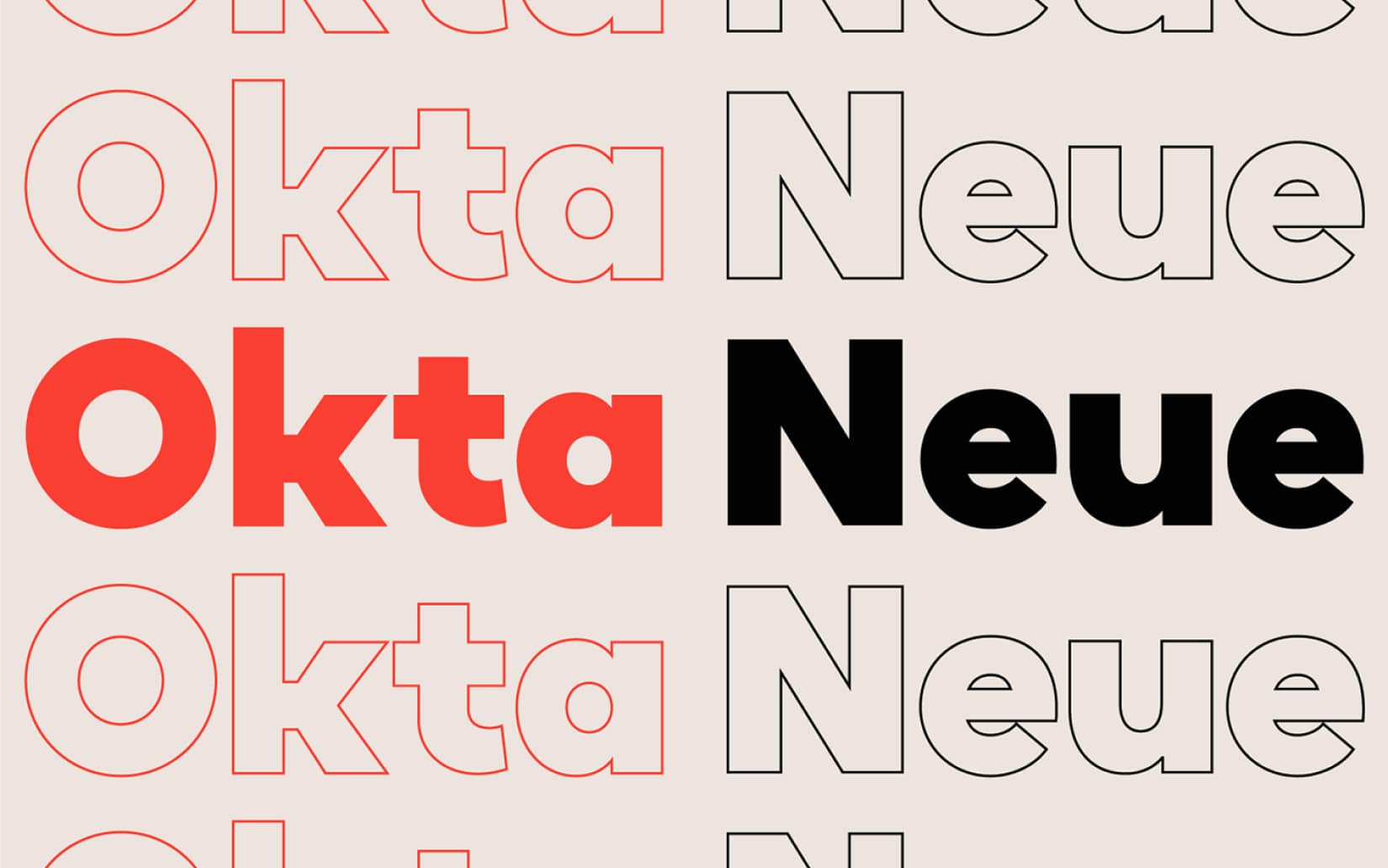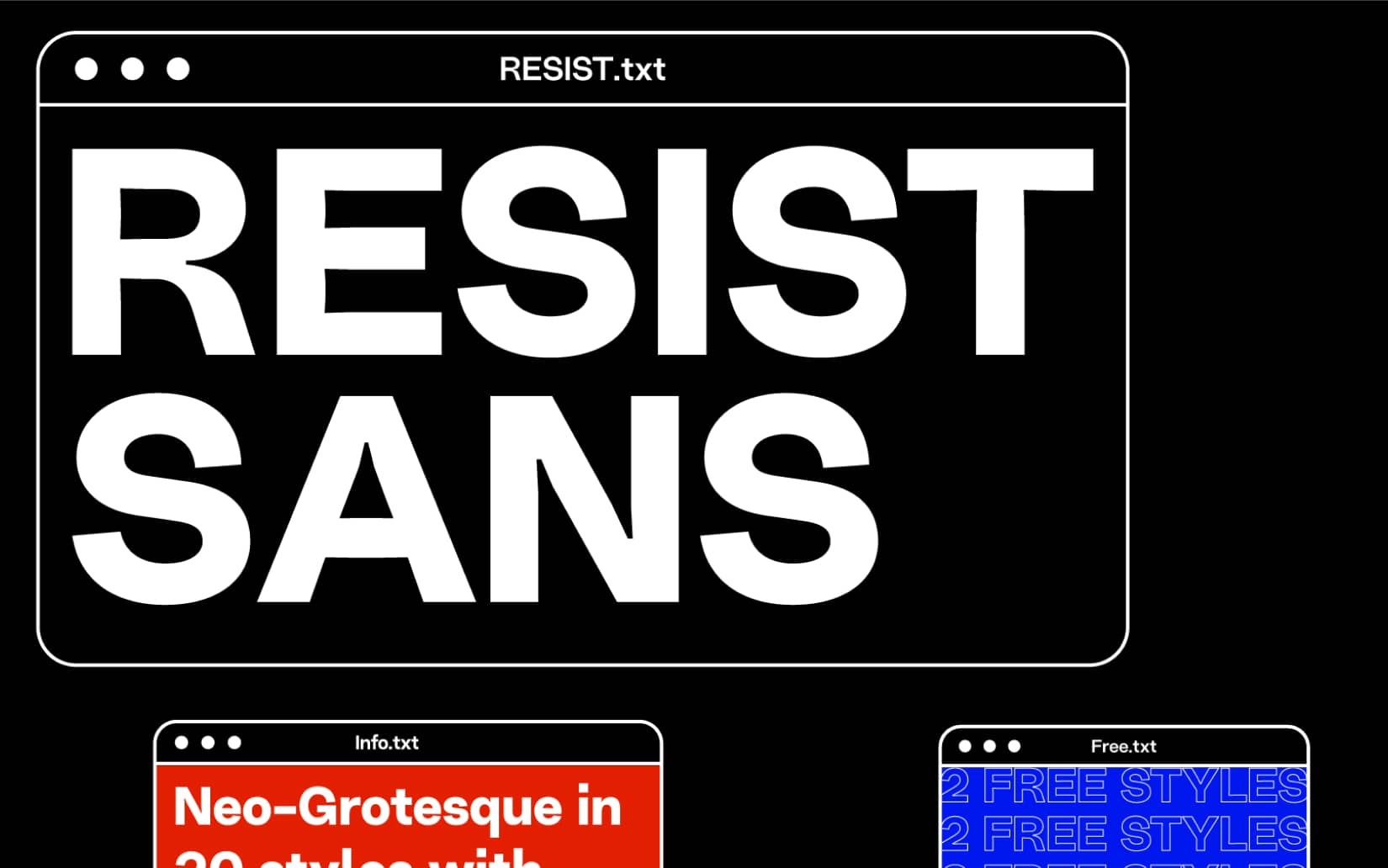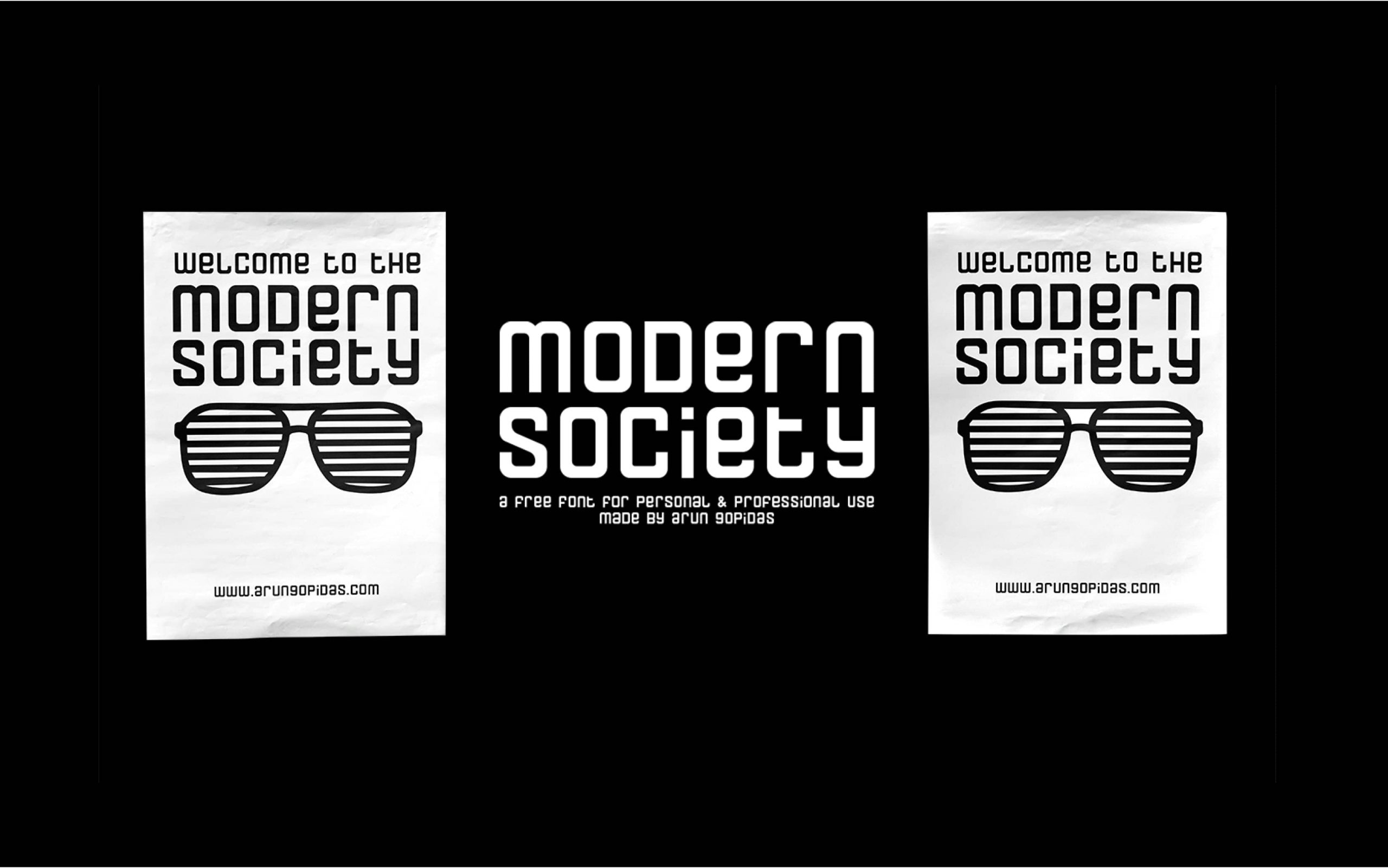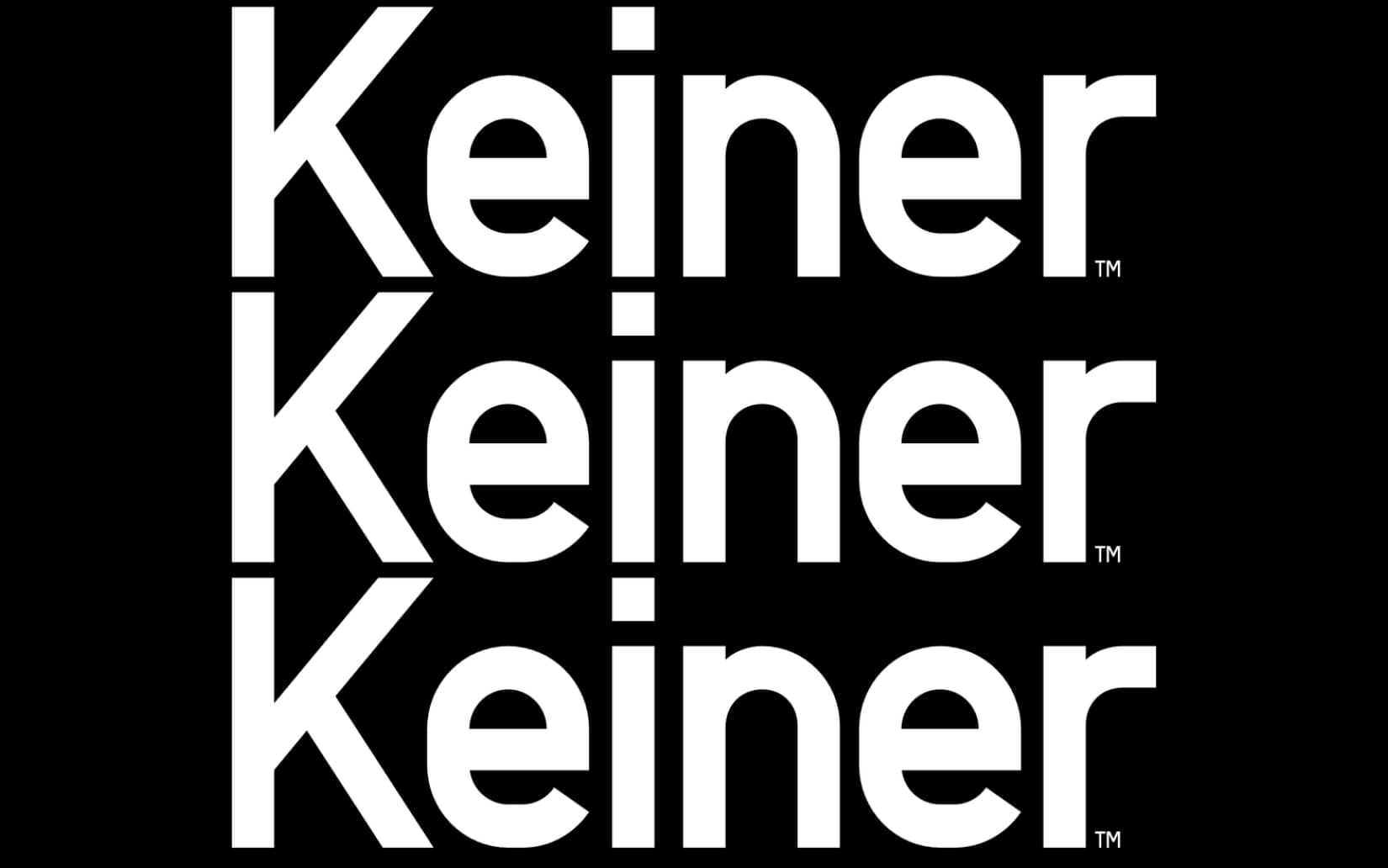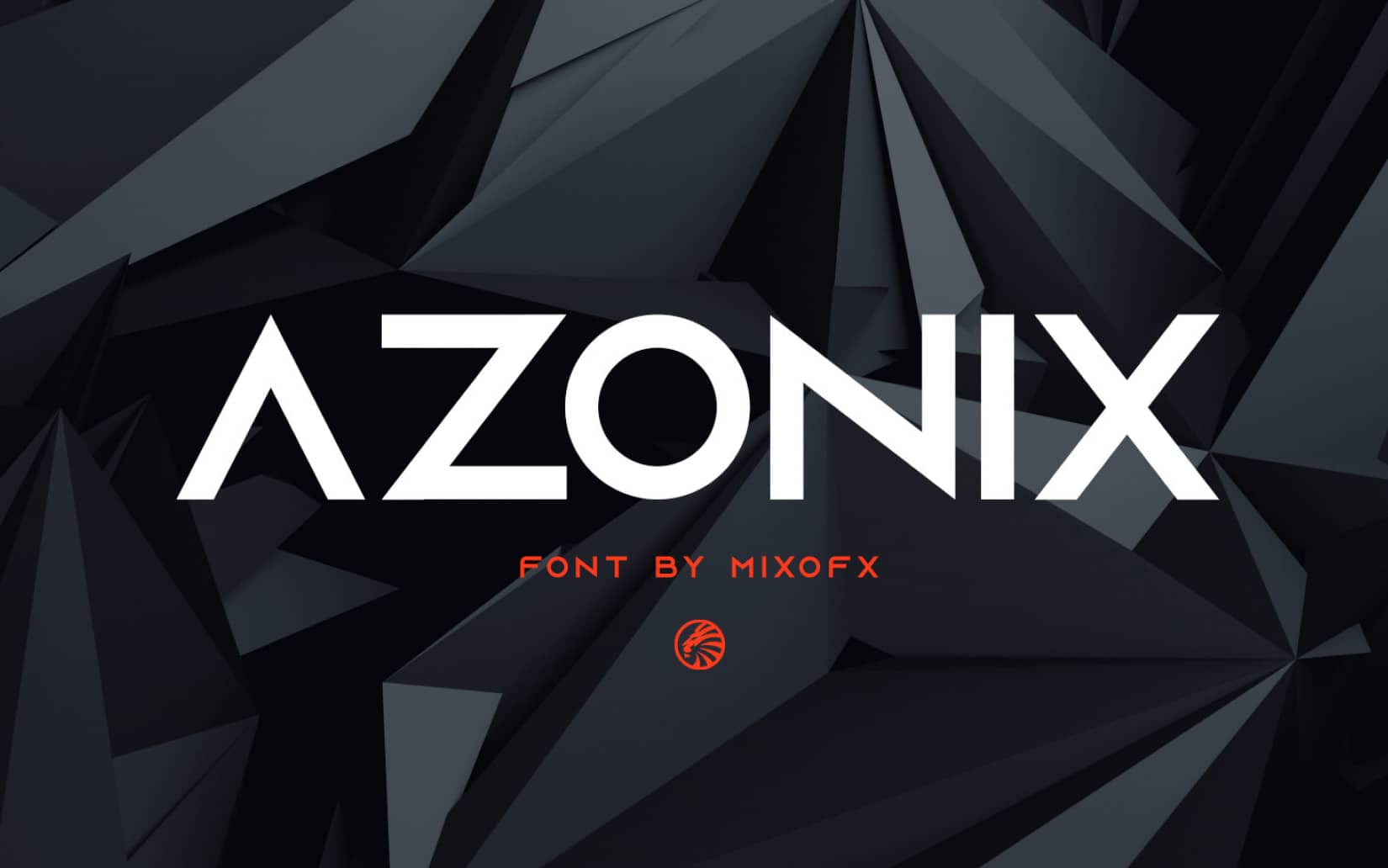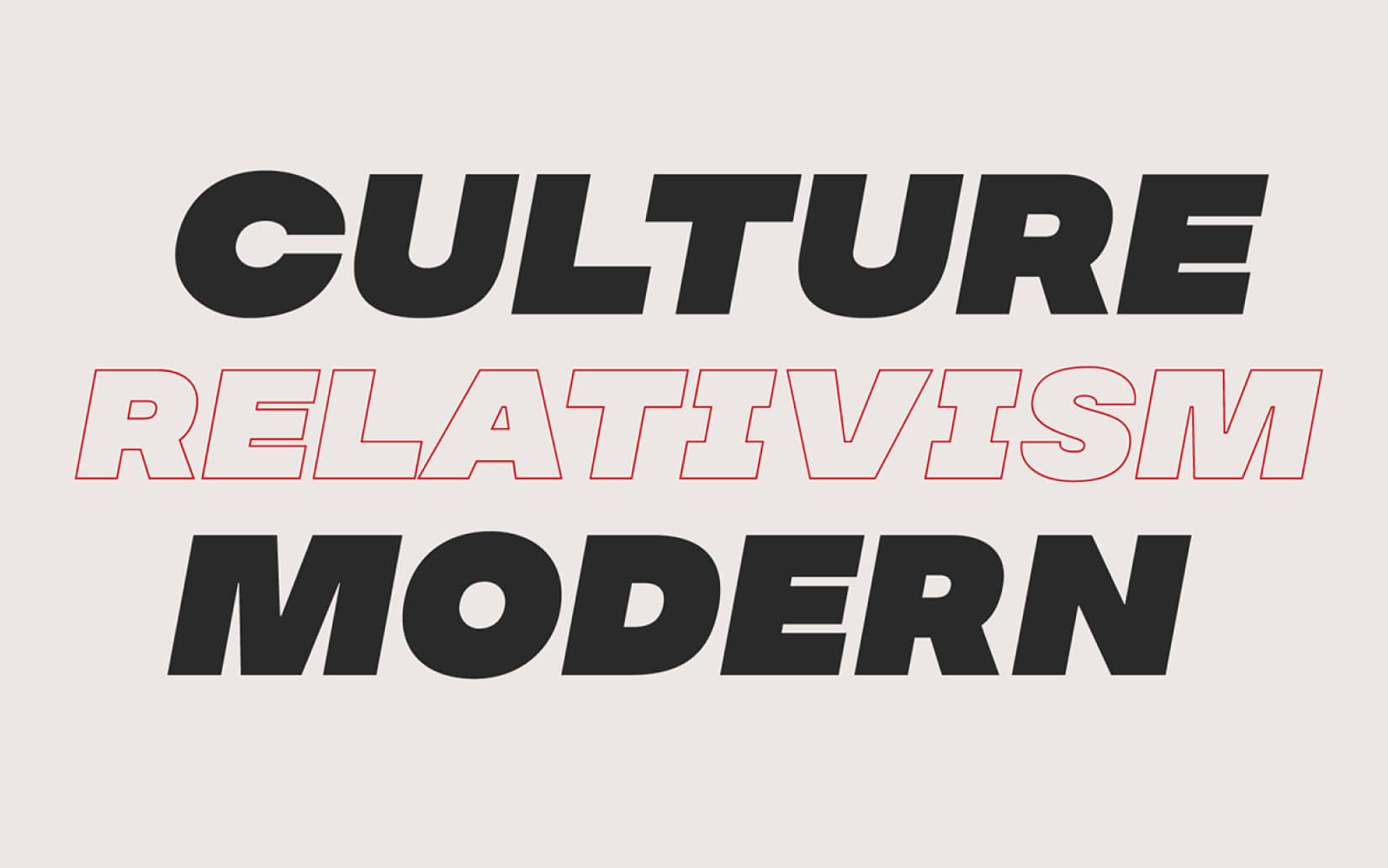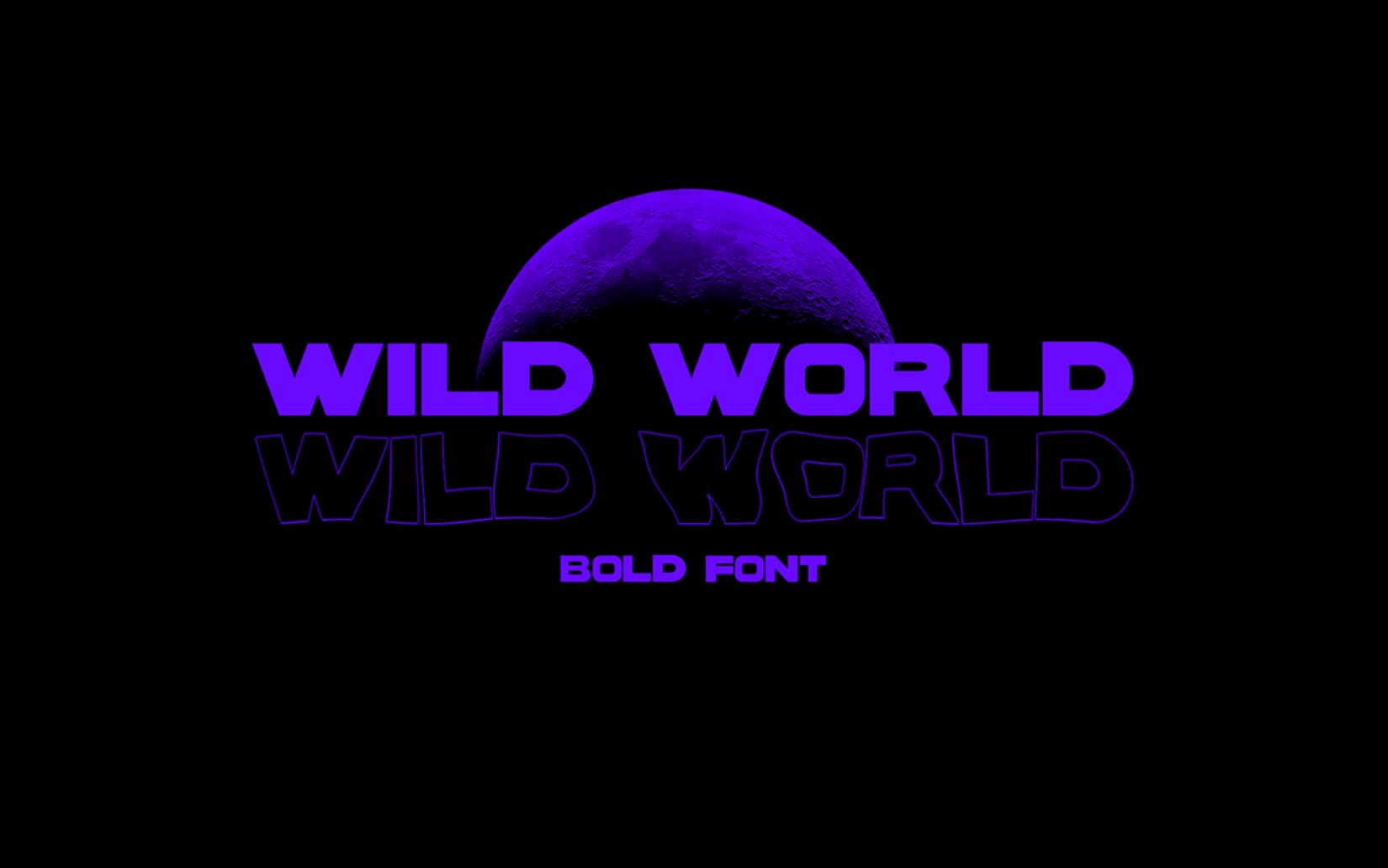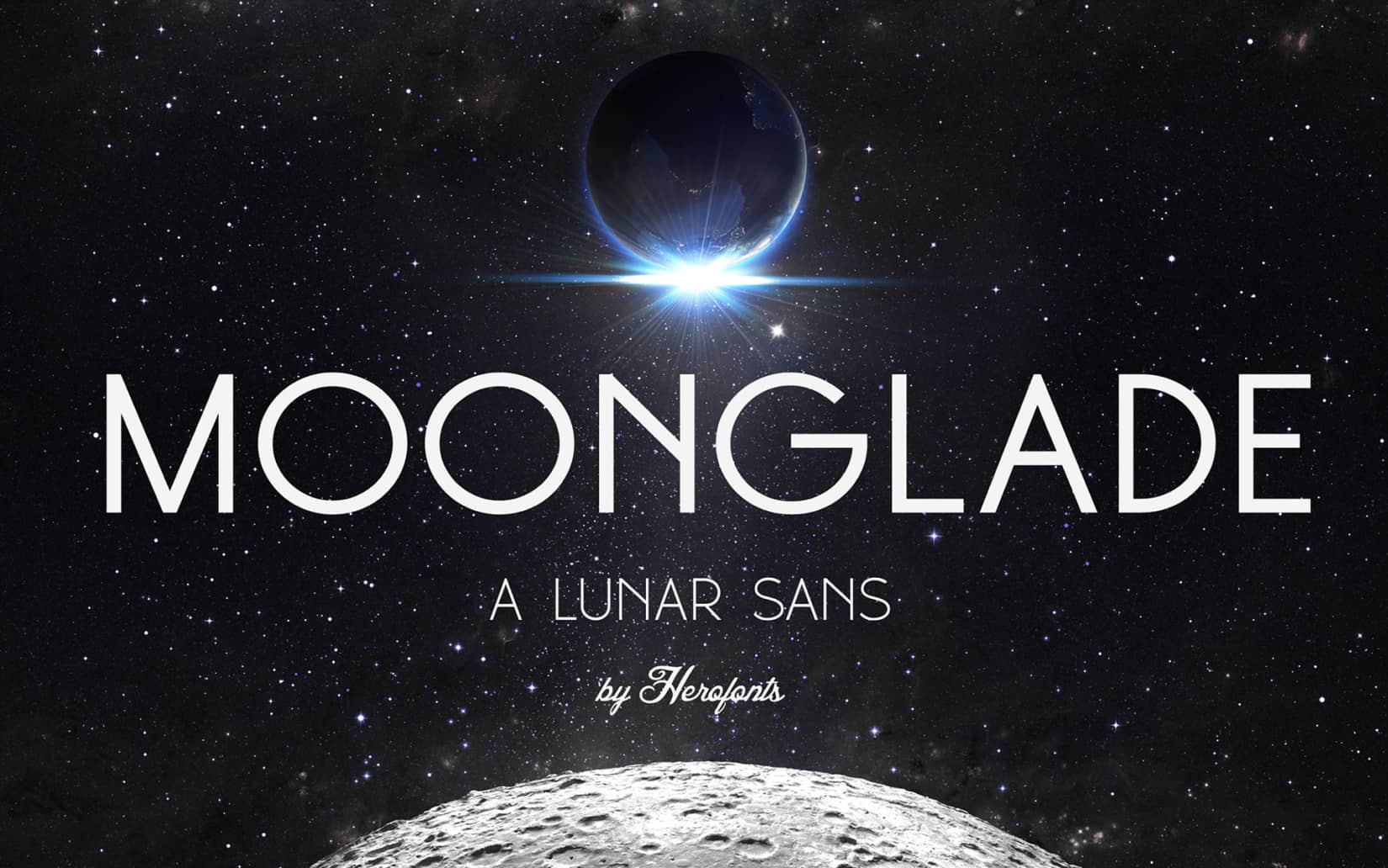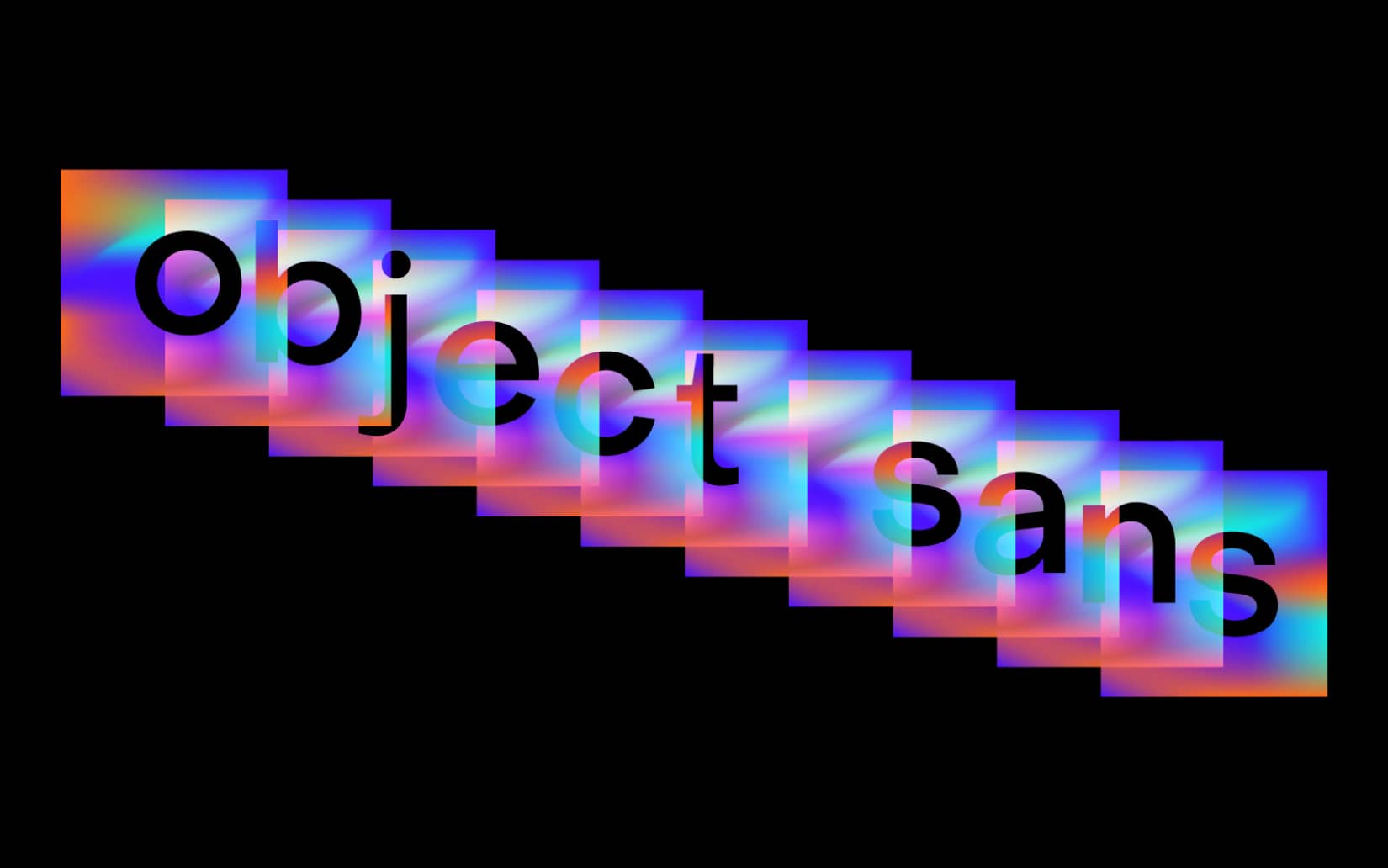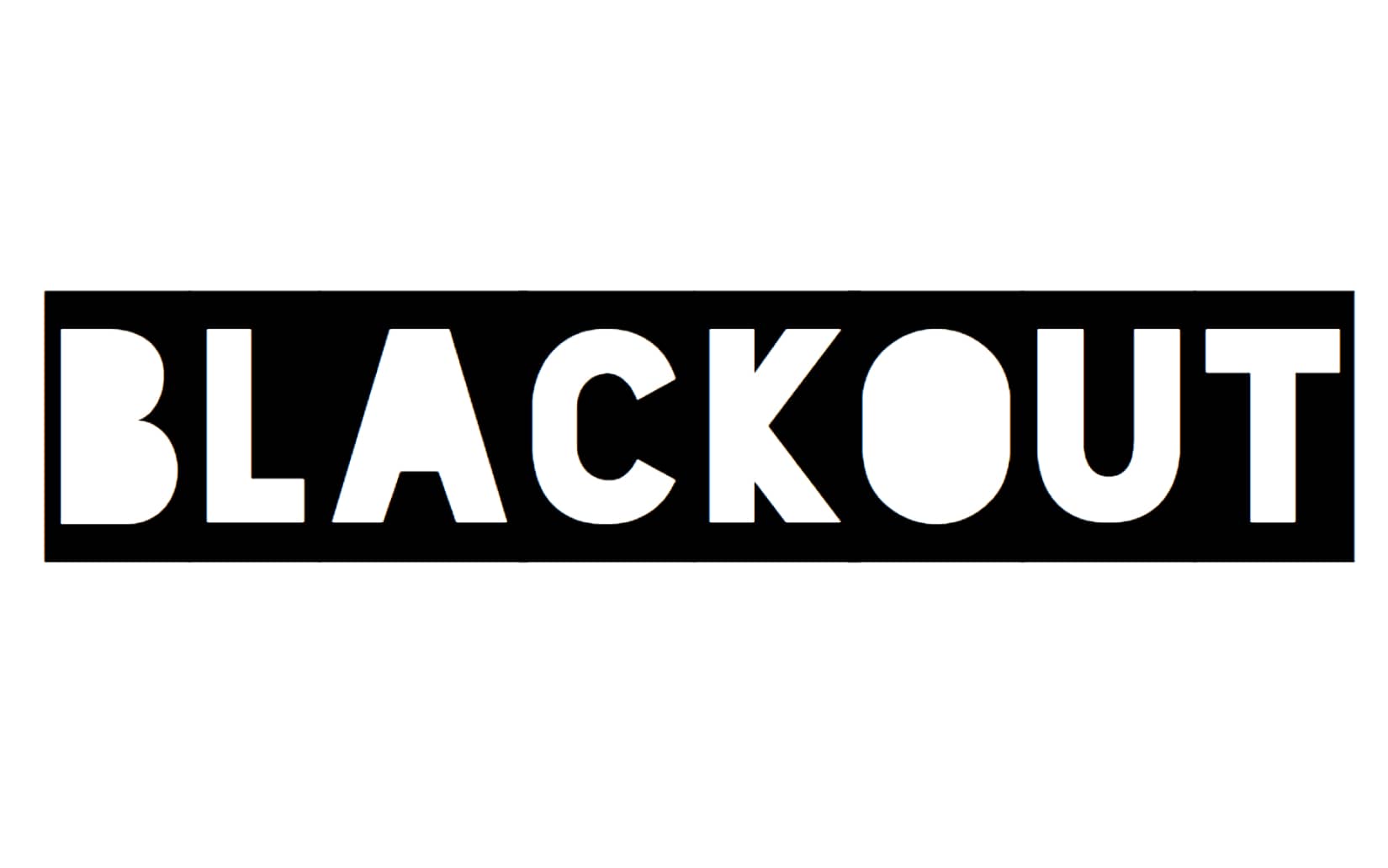
20 Best Free Block Fonts in 2021
We have perpetually stated that typography is one of the most crucial components of a design project, it can either elevate your design or shatter it completely. This is why we pay close attention to making the right decision when it comes to fonts and typography.
This time we have compiled all the best block fonts that you can use on your personal as well as commercial projects. Block fonts are made to capture the user’s eye and captivate their attention with their bold personality and highly detectable size.
What are block fonts?
To simply put it block fonts include typefaces that are designed in capital letters, thick strokes and curves, and characterized by their bold personality. Block letter fonts are mostly used for signage, headlines, posters, logo designs, including flyer designs, or any other attention-seeking design area.
Contrary to the belief that block fonts are mostly characterized by squared blocky designs, block letter fonts come in different shapes and designs, as you will be able to see throughout the fonts we’ve selected for this collection.
Some common characteristics of block fonts will include serifs that are most often shaped as squares or rectangles, these are known as slab serifs, capital letters, strokes that have the same thickness, and that all block fonts are easily readable.
Why use block fonts?
Block fonts may include other subcategories, but what sets them apart from typefaces is that they are easily read and are perfectly suited for signs and headlines. Exploring the wild nature around this category of fonts, it is perfectly clear that block fonts are best fitting for design projects like posters, large headings, logos, branding, signage, as well as short copy that aims to seek the spotlight.
Due to their character and size, block fonts are easily readable and bring prominence to the text, thus making them perfect for headlines and big titles. Block fonts are not usually made for large body text, as their bold nature will startle users to read long texts in such strong and prominent typeface.
Best free block letter fonts to use in 2021
We will start off our collection with the beautiful font of Pikolo Bloc, a typeface that’s made to attract attention. Pikolo is one of the typefaces that sits far from their group with its distinctive round edges, but yet portrays a strong and powerful presence. Download Pikolo for free to use it on your personal or commercial projects.
Moche is not your typical sans serif typeface. The beautiful contrast and reverse nature of Moche block font will make a great choice for posters, headlines as well as logo designs. Moche was inspired by the Classical Roman inscription, only to be transmitted with a modern flavor.
Le Murmure is another outstanding free block letter font that can be used on any project to spice up the flare of the design. The font includes condensed proportions inspired by the magazine titling fonts, thus making Le Murmure a perfect choice for magazines and titles.
Sporting Grotesque is a unusual open-source sans serif free font that was specifically designed for large display and headings. Sporting Grotesque features large proportions and unusual letterforms. The font comes available in two weight bold and regular, and does not contain italic styles.
Higher is another amazing free block font on our collection that portrays an elongated and rather tall typeface design. The font includes the characters A-Z and number 0-9 and it is available to use for personal and commercial projects.
Advent Pro is a modern free block font that’s suited to work with both web and print designs. Advent Pro is a beautiful mixture of the universal characteristics of sans serif fonts and modern attributes.
Rasputin Slab Serif Font is a distinctive block font that you can download for free and use it your next projects. The font describers a rather sharp and versatile serif typeface that offers a bold and strong character while still maintaining readability. Rasputin comes in available in multi languages to use.
Amargo Bold comes crashing our list with its beautiful and simple interface, that you can use for either posters, banners, signage, or any other project as it comes available to use on commercial projects as well. Amargo includes one weight only.
Kage Serif font is another modern and versatile block font that contains serif, uppercase, lowercase, as well as ligatures and numbers. Kage Serif font is free to use and is perfectly suited for branding projects, logos, posters, magazines, invitations and much more. It’s charm and versatility pairs well with the strong character of the font, thus making it a bold choice for any project.
Blackout is an innovative block font that expresses a loud and powerful presence. Blackout is made for large heading and titles, and can not be used in long text due to it’s unreadable interface. The font is issued under the open font license, which means its available to use on all personal and commercial projects.
Here we have another amazing block font ready to be included on your next projects for free. Grafier is a block letter font that comes available in ten styles. The font presents a classical design in the digitalized era while still presenting its own unique style. All the styles complement each other, making this font a greater choice for large display areas and websites, posters as well as print work.
Object Sans is a bold and powerful block font that pairs a beautiful combination of Swiss neo-grotesques and geometric fonts. The font was designed to work for both print and digital work here including branding, logo designs, websites, packages, posters, or headlines. You can use the font for free for personal projects, if you wish to use Object Sans on your commercial projects, you shall need to require a license.
Moonglade is a technically geometrical block font that will add structure and elegance to all your designs. The font is free to use for personal projects only, to use Moonglade and its respective Rounded and Lined styles, you will need to acquire a license. Moonglade comes in three weights in three styles.
Wild World is a bold block letter font that comes in irregular shapes for a more creative and distinctive design style. The font comes in only one weight, Wild World Bold. You can use the font for large posters, print work as well as digital designs.
Soul Maze is a font family that includes 5 incredible fonts which are applicable in many design projects like fashion, magazines, logos, branding, headlines and more. The font is free for personal use only.
If you are looking for a bold, geometrical, uppercase sans serif font, Azonix is the right match for you. The font presents a modern and strong typeface that consists of number and symbols. Create outstanding logo designs, posters or magazine designs with this beautiful block font.
Keiner is an amazing free block font with no optical corrections and stem contrast. The font is a firm mono-linear typeface that will find usage in environmental signage, large areas of display, as well as logos and print work. The free version support personal license only.
Modern Society is a single weight contemporary block letter font that presents a monospaced and grid-based design perfect for product packaging, logo designs, posters as well as print work. The font is free for personal and commercial use.
Resits Sans is a neo-grotesque and revolutionary typeface that presents a neat and minimalistic look, but nevertheless, its free-spirited nature is mostly noticeable as it accentuates the tentativeness of each letter form. You can download Resists Sans block font for free in two weights only Resist Sans Text Light and Resist Sans Display Medium Oblique.
Okta Neu is a simple yet presents a unique personality typeface that is made for designers, typographers, and other font users alike. This stunning block font presents a neutral typeface with simple geometric letters shapes and low contrast across all styles. Only two styles of this premium font can be downloaded for free, Ultra Light and Black Italic.
Final Words
We have come to an end with this collection as we gave out all our secrets in terms of typography. We tried to include only the best block fonts that you can use and download for free. Most of them are available to be used for personal as well as commercial projects. Some will need to acquire a payment of the font to be legible for commercial use.
Our collection is beautiful and diverse, thus making it easier for you to decide on the preferred font for your next projects. Blocks fonts are bold and present a firm personality, so should your project. To find other resources where you can download font for free, please refer to our article on The Best Website to Download Fonts for free.
Typography is more valuable than one gives importance to, as it can be the pivotal component that presents the design or the work. It play an important role in conveying the right message and attracting the right audience.